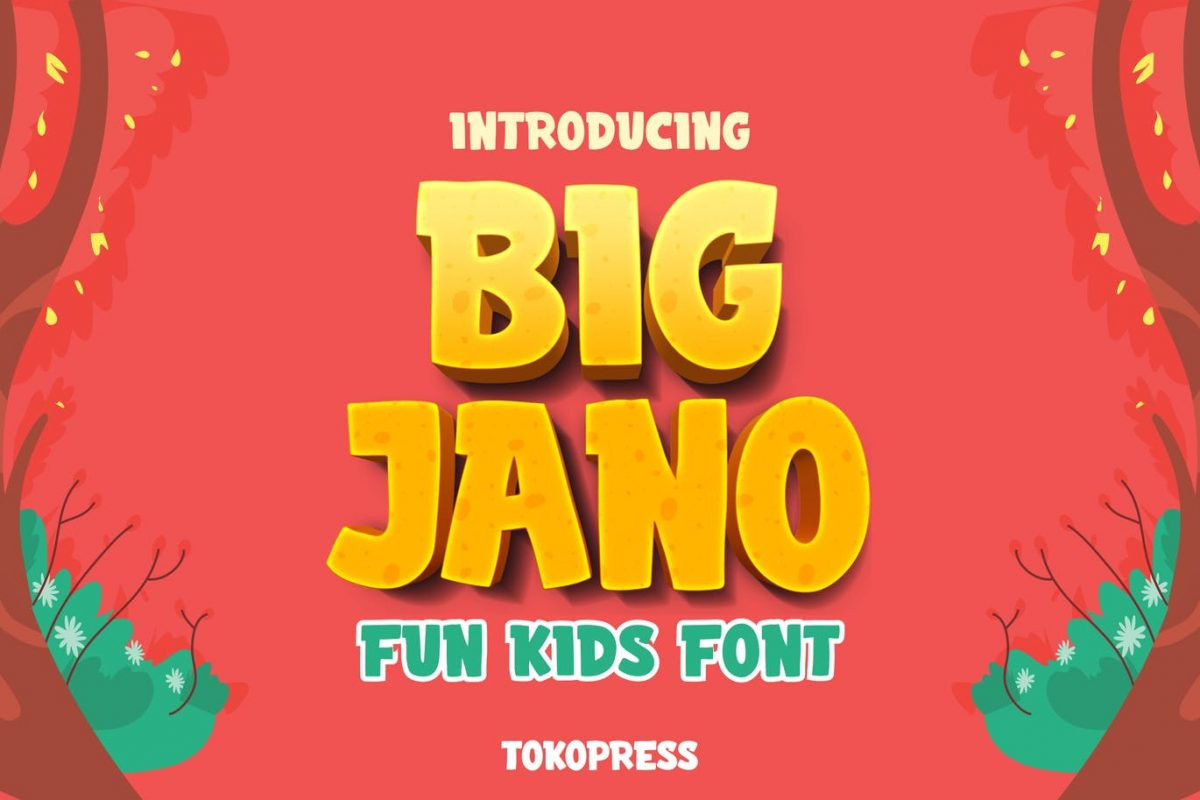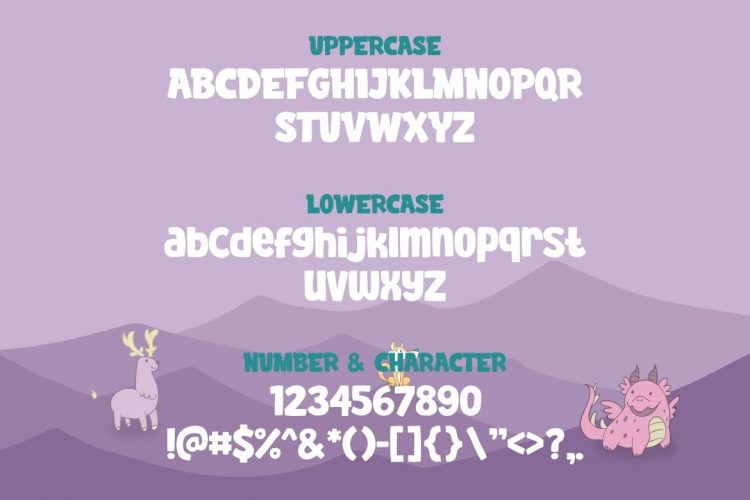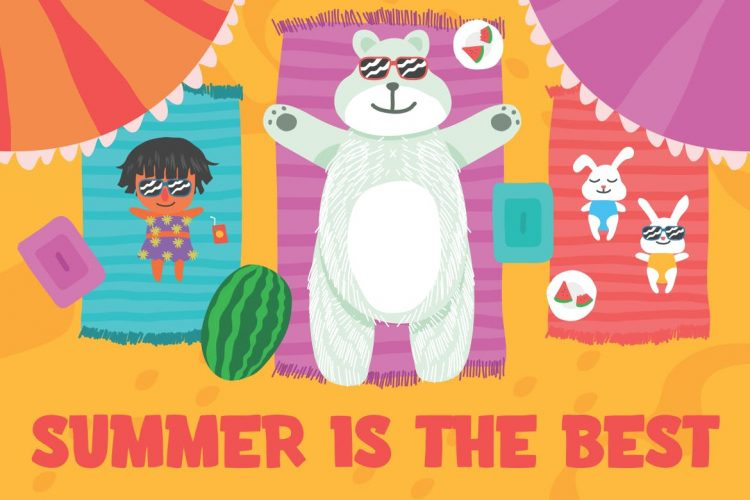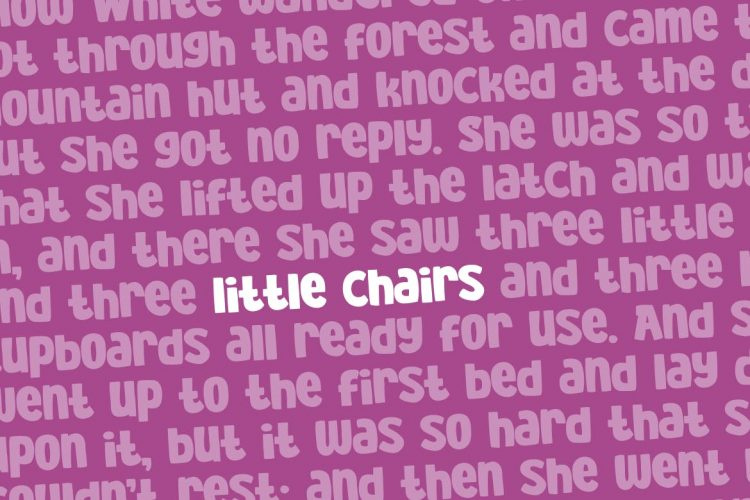
Big Jano – Kids font
The bold but playful sans serif shape will bring a lot of joy to kid’s hearts.
Suit perfectly for kids market, online games, stationary, t-shirt and school supplies font, poster, movie title, youtube covers, youtube thumbnails, social media page covers and so on…